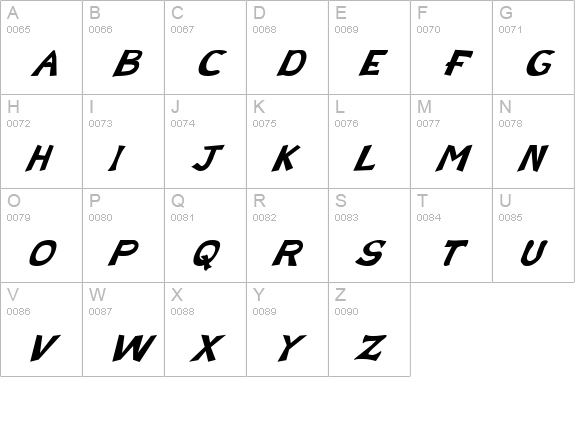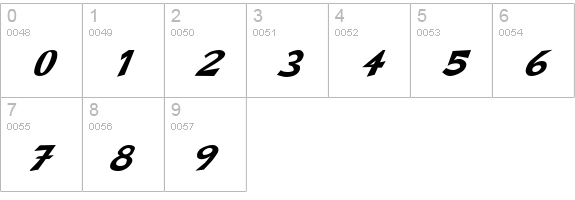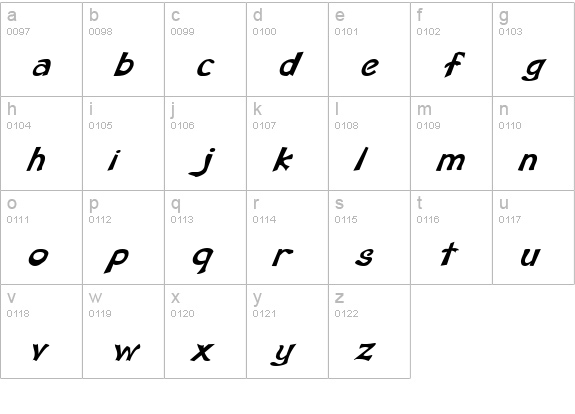
GeniusItalic Font Details
GeniusItalic font is a stunning typeface that exudes elegance and sophistication. Its sleek and stylish design makes it perfect for adding a touch of class to any project. The italicized style of the font gives it a modern and dynamic look, making it ideal for use in headings, titles, and other prominent text elements. What sets GeniusItalic font apart is that it is not only visually appealing but also highly versatile. Whether you're designing a logo, creating a poster, or working on a website, this font will elevate your designs to the next level. The best part? GeniusItalic font is completely free to download at FontsMarket.com. So go ahead and give your projects a touch of brilliance with this exquisite typeface.